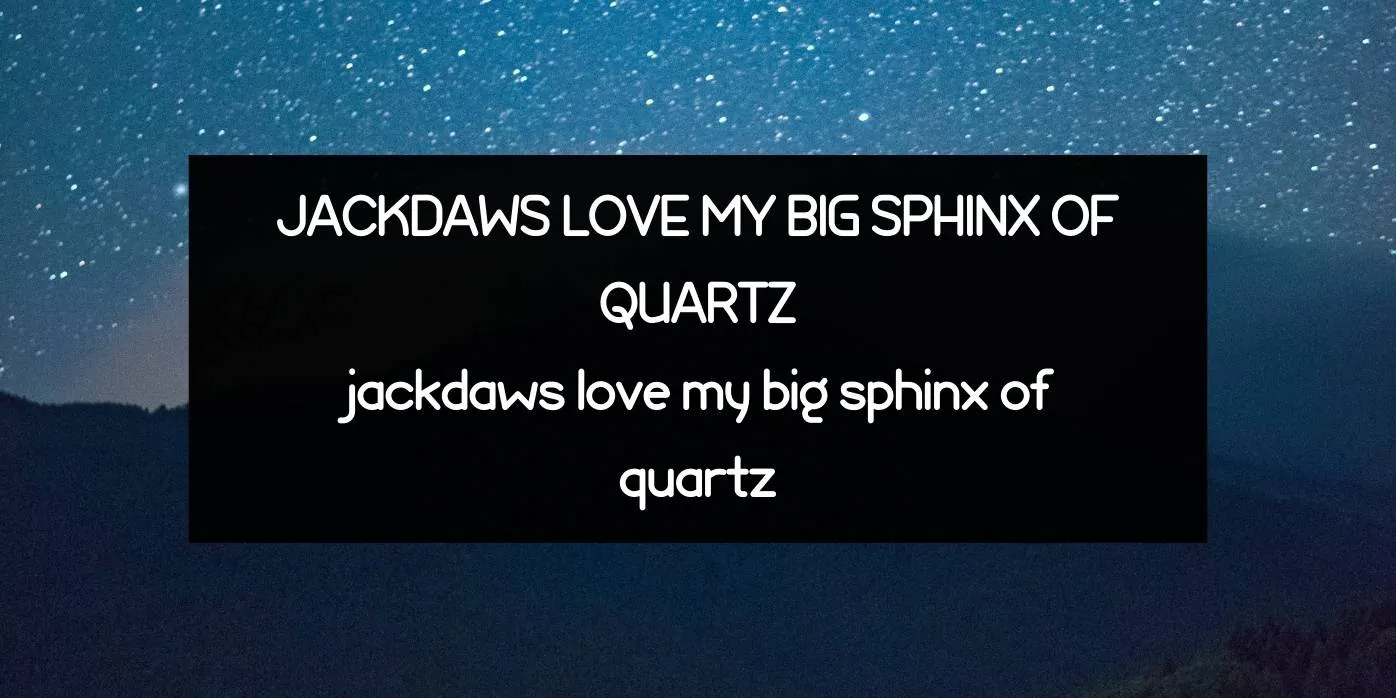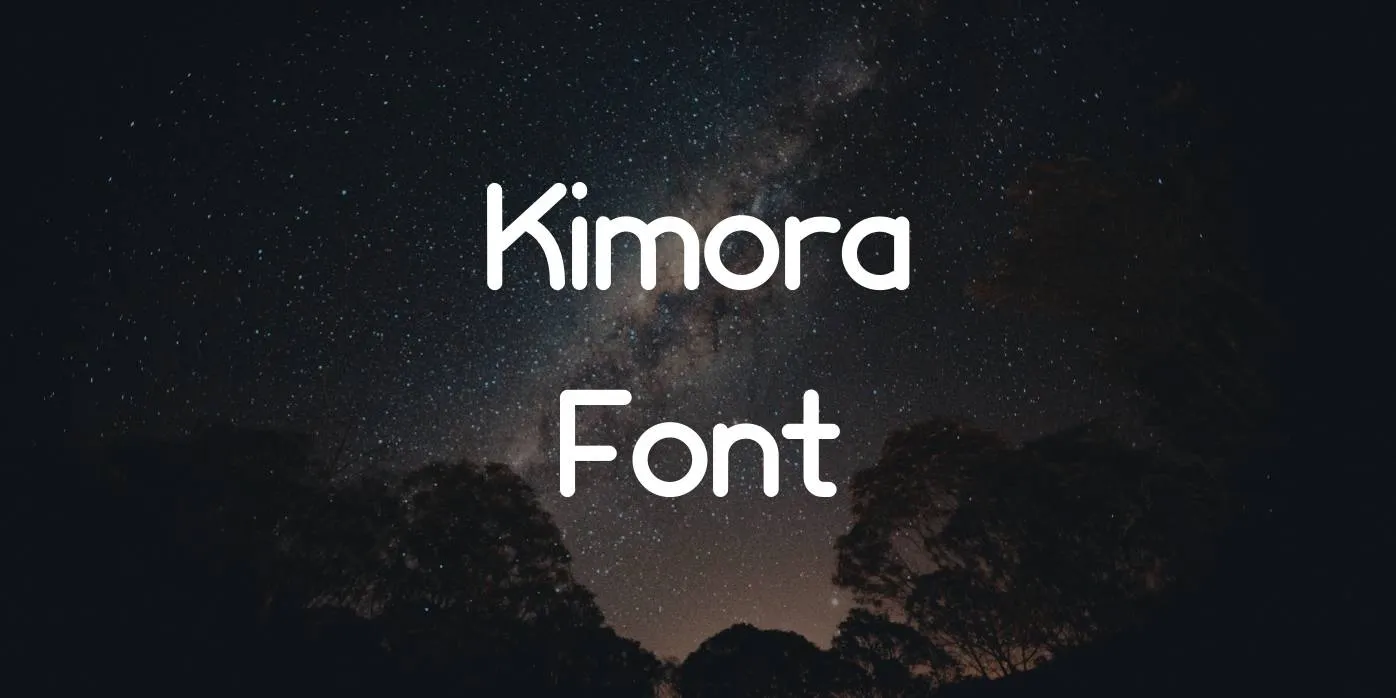
Kimora Font
Kimora Font is a sans-serif typeface with a fun and youthful vibe. The letters are simple and have playful energy. Kimora Typeface is a unique Typeface created by designer Kimora Lee. Kimora Typeface is available in both regular and bold weights.
It includes support for Latin, Cyrillic, and Greek character sets. The glyphs have been designed to work well together, providing a natural and fluid reading experience. This font contains a variety of ligatures and alternates to provide even more flexibility. Kimora Typeface is a great choice for branding, advertising, web design, and more.